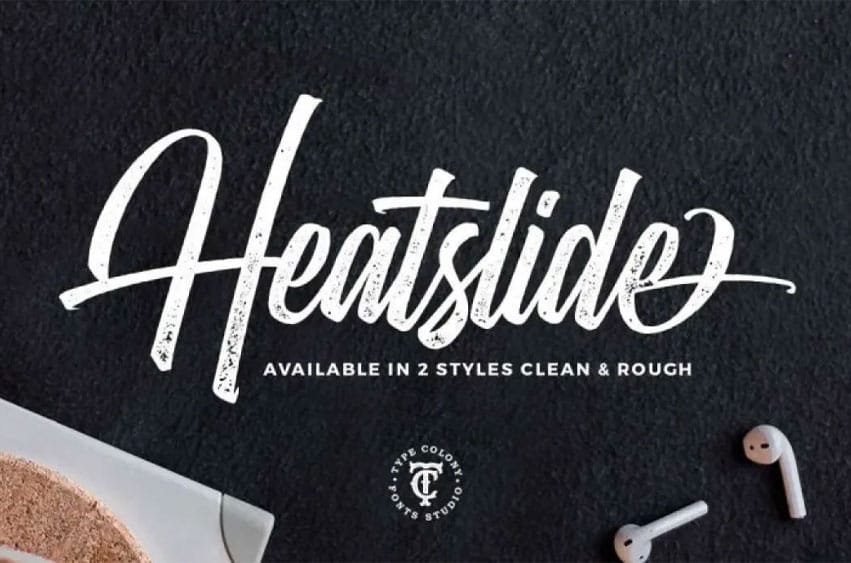
Heatslide Font script is a fun script typeface with beautiful decorative elements, clean lines and great alternates for fast logo and lettering design.
As its name suggest it is based on brush lettering art forms and the element of urban culture giving the impression of power, elegance and sophistication which can be used in logos, letterheads, posters, apparel design labels and other designs.